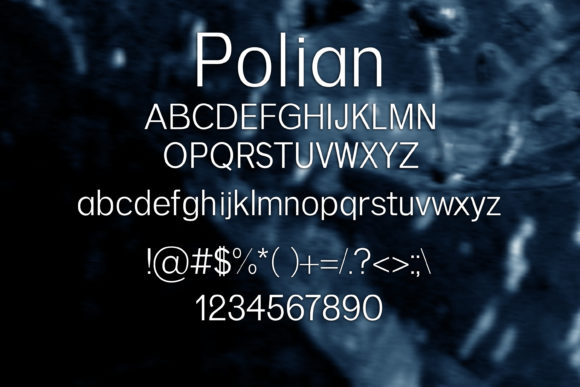
Introduction to Polian Font
Polian is a sweet and simple sans serif font with a unique style.
Get inspired by its modern feel .
Key Features of Polian Font
Why Choose Polian Font?